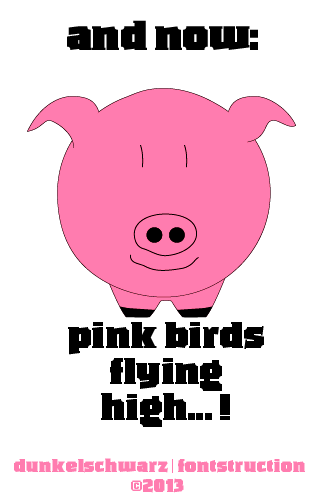
ds Blacky Serif
dunkelschwarz
ds Blacky Serif is the little sister from ds Blacky, but also simple, clean and heavy
Nice work - love the sample :) 10/10
Awesome! I love the varying angles, especially the B and a. It seems that your ý is missing its y. ;)
As beautiful as blacky, but more dynamic. Love those ligatures.
In my first year at FS (I was just a learner, and I still learn) I've made a font with similar corners but with very disastrous results (the kerning problem, of course, you can see it). Yours is much better, congrats!
the serif version is very cool